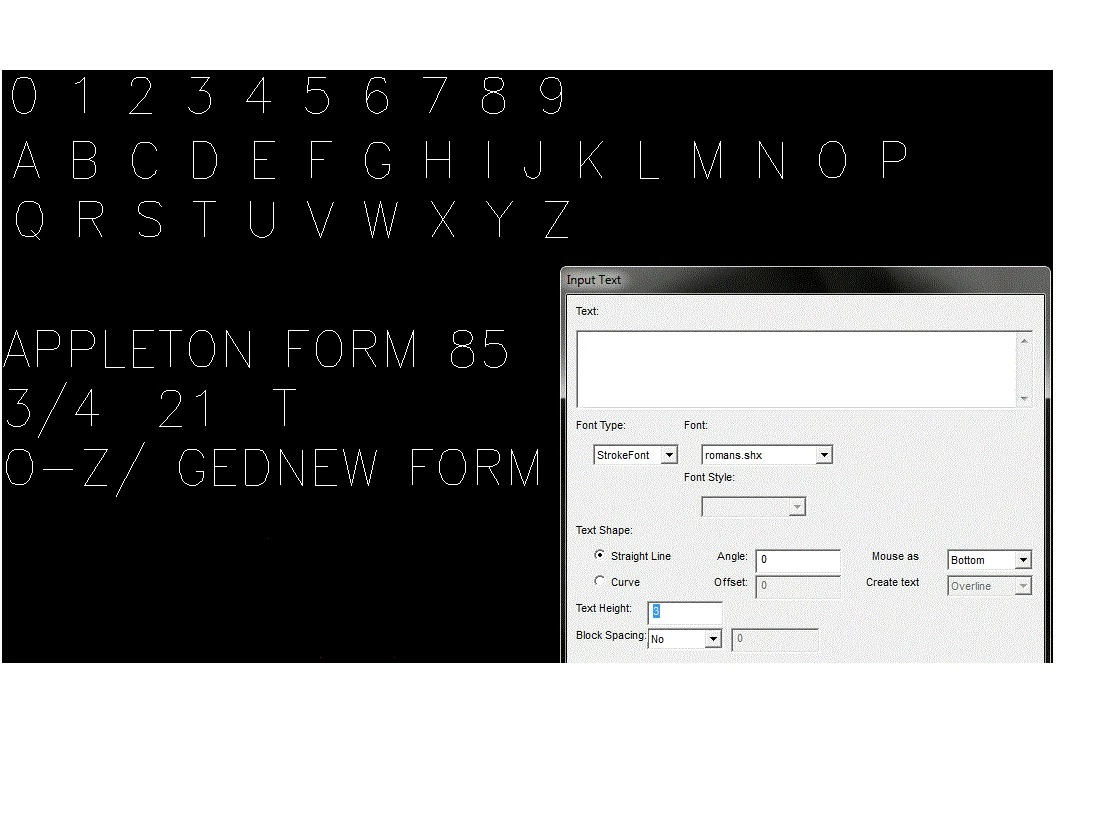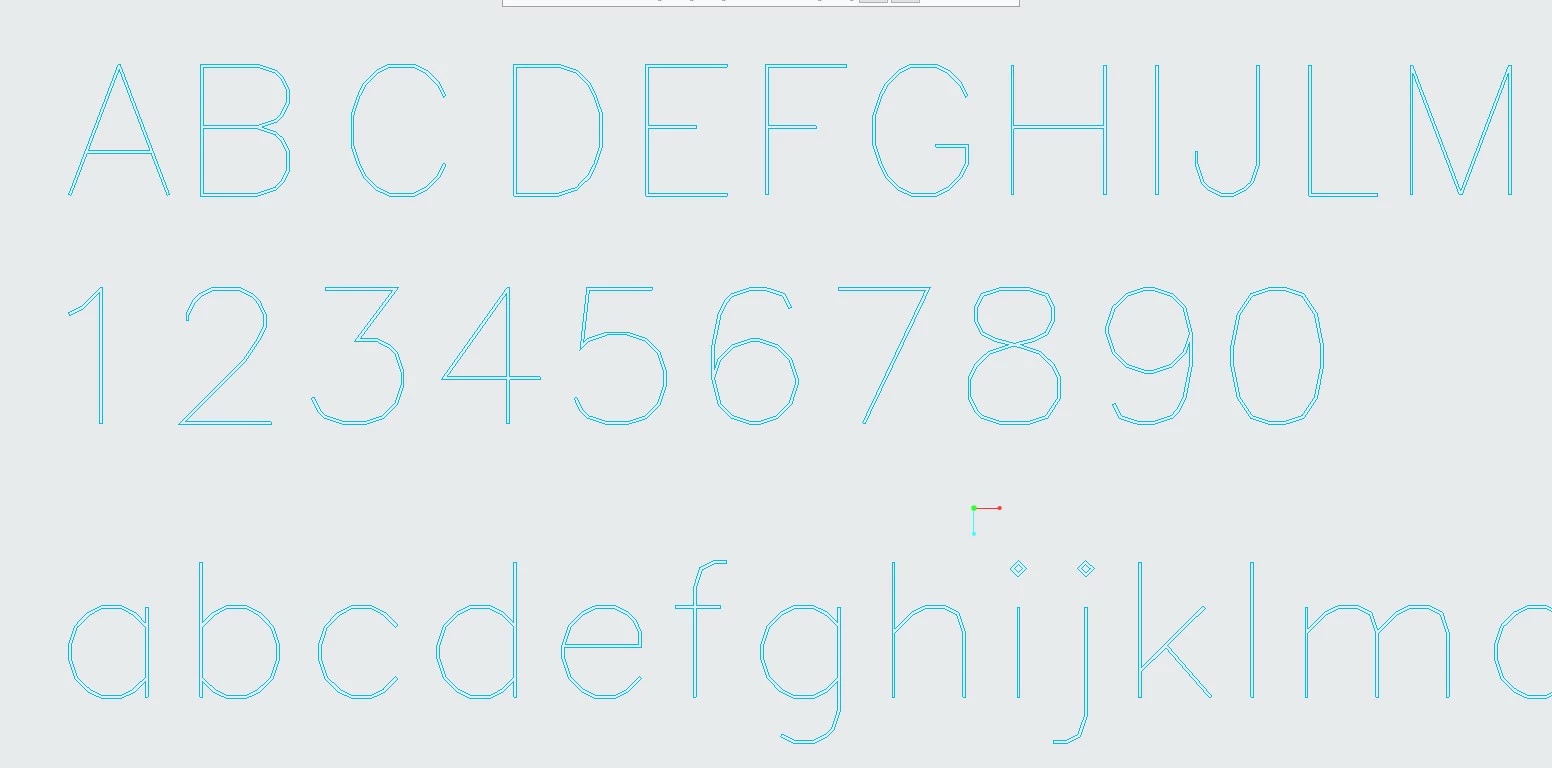
Custom font in Creo
When i use romans.ttf font in Creo sketch, it is two stoked line font. My requirement is i want single stroke romans font in Creo sketch. Need support.
I need fonts in Creo sketch as attached file.
Currently we face 2 stroked font in Creo sketch. I need single stroked font (RomanS).
in Creo you can use:
• Creo proprietary font (single stroked) ... for example isofont
• standard TrueType (2 stroked)
I do not know whether Creo is able to use single line fonts.
Note: What file contains your SURFCAM FONT?